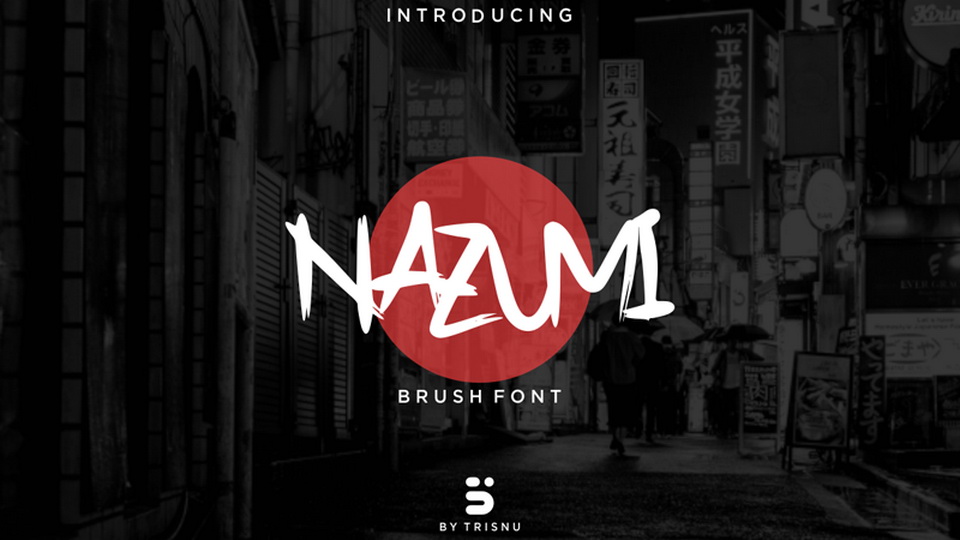
Feb 9, 2025Script & HandwrittenNazumi Font Nazumi is a hand painted brush font. It can be used for posters, t-shirt prints, handwritten quotes, product packaging, merchandise and more. Font DetailsDesigned by: Trisnu WardaniWebsiteLicense: Free for commercial use Download Nazumi FontFile size: 23.38 KBCreated: February 16, 2025Updated: February 16, 2025 Download Explore similar fonts Righman Font Megas Font Nassbreng Font Saklisen Font Ablinase Font Medasron Font # Brush# Grunge# Handwriting# Rough